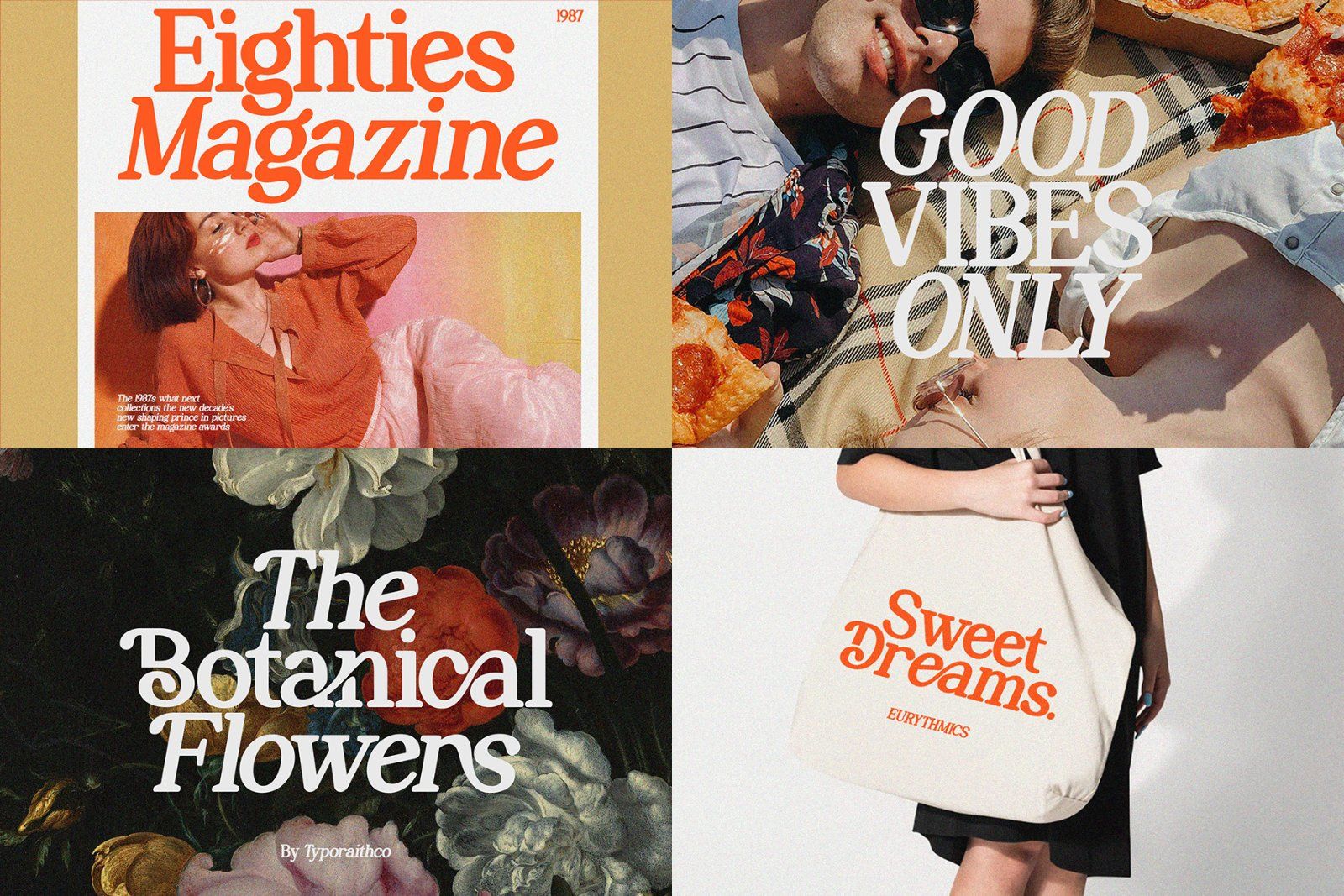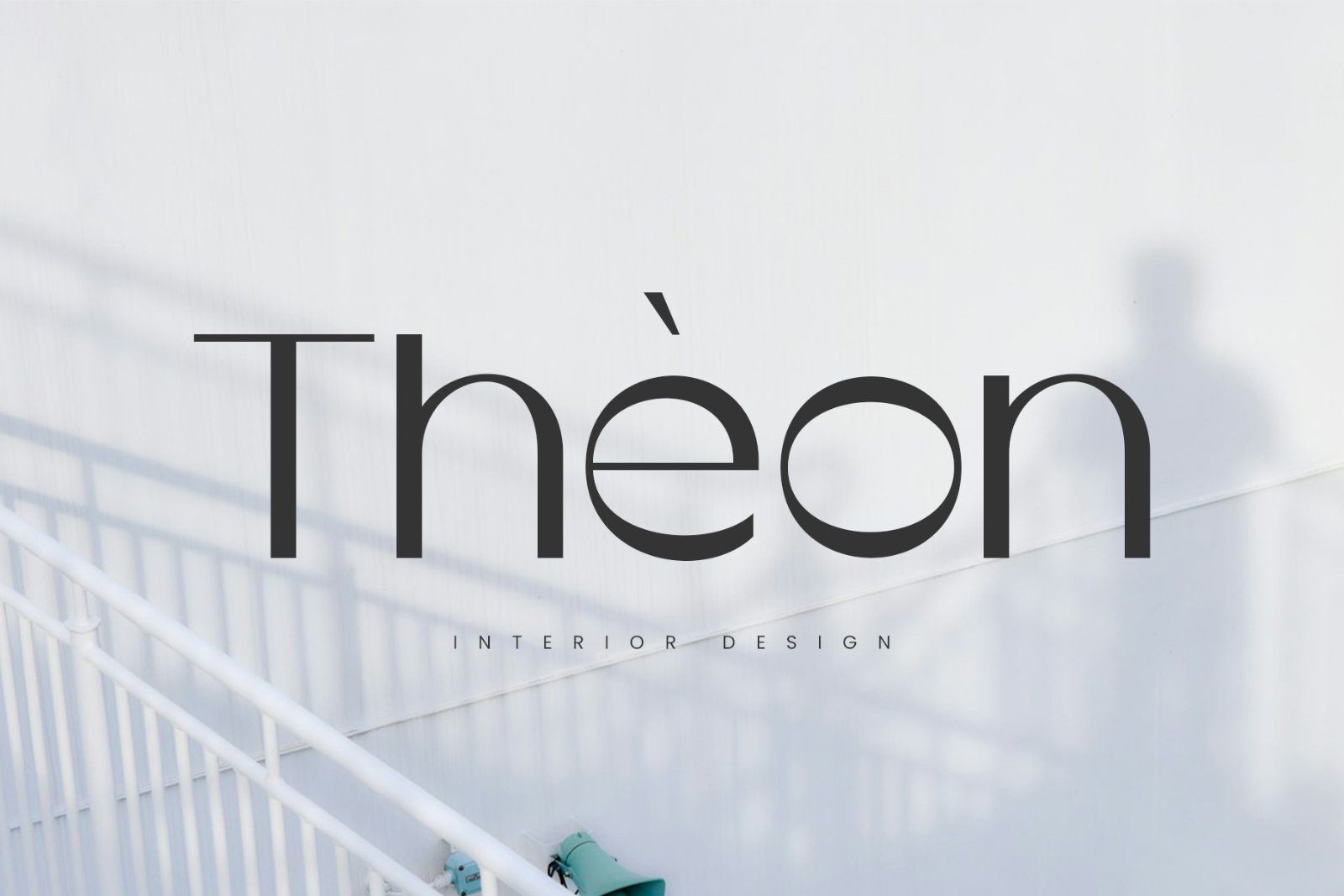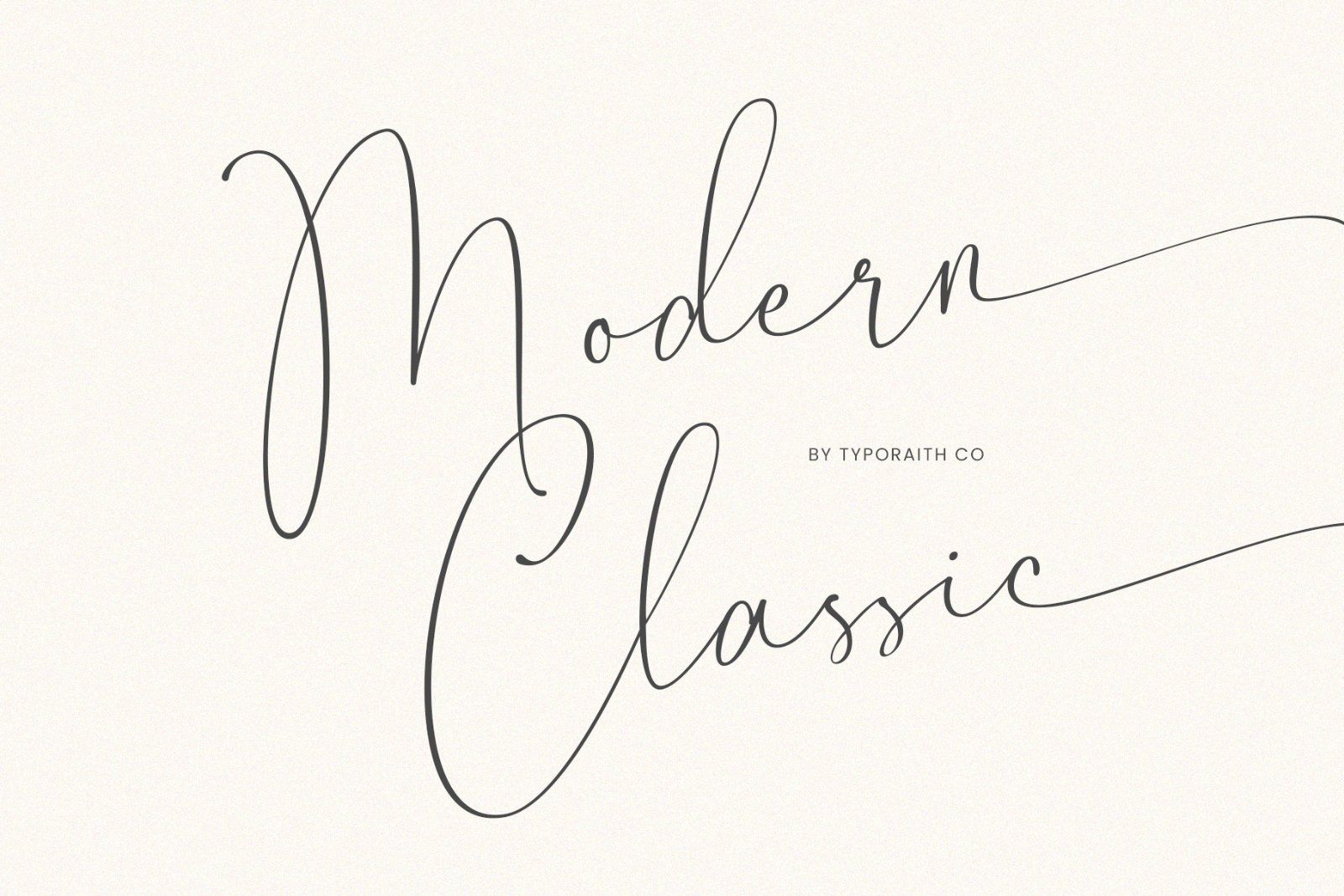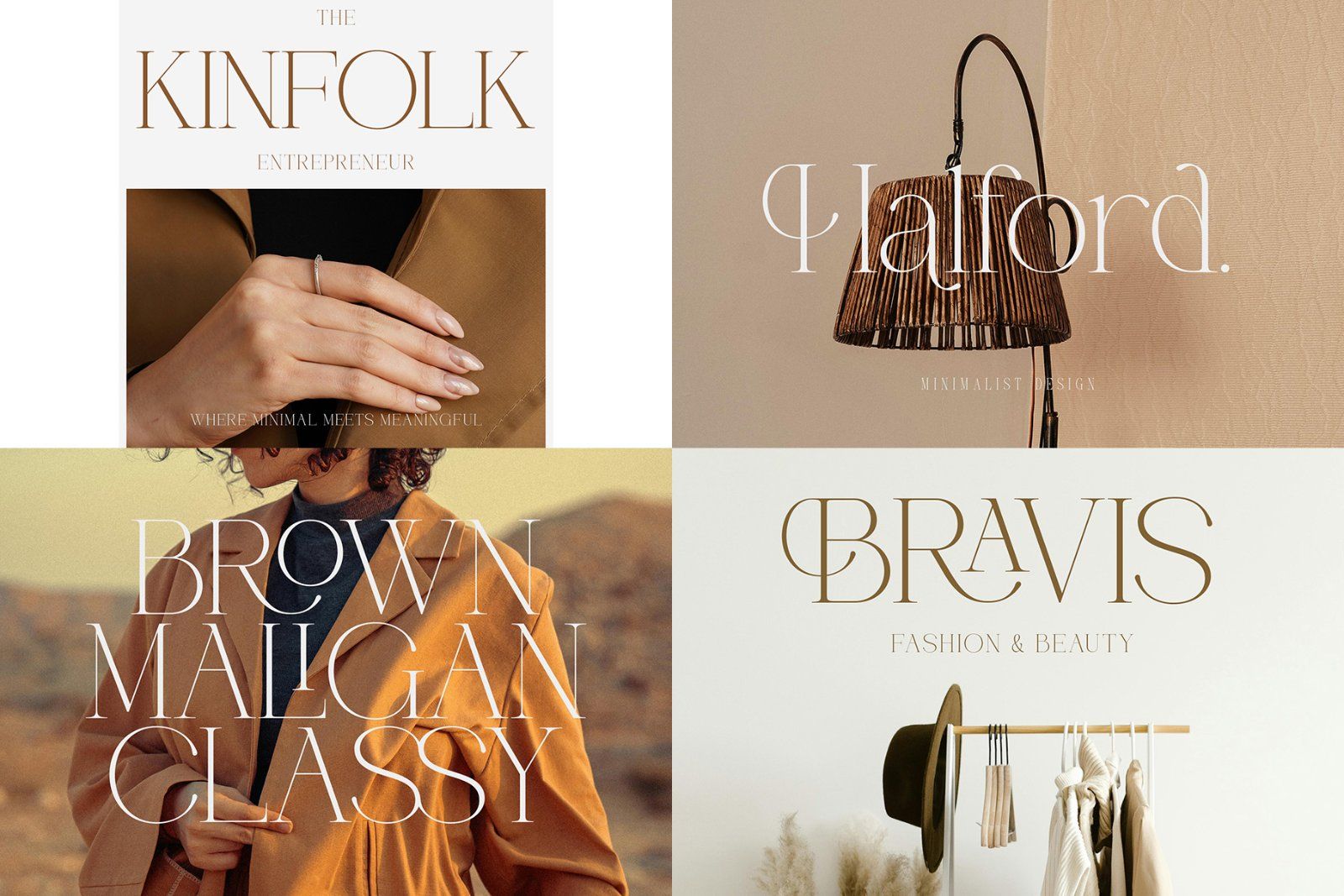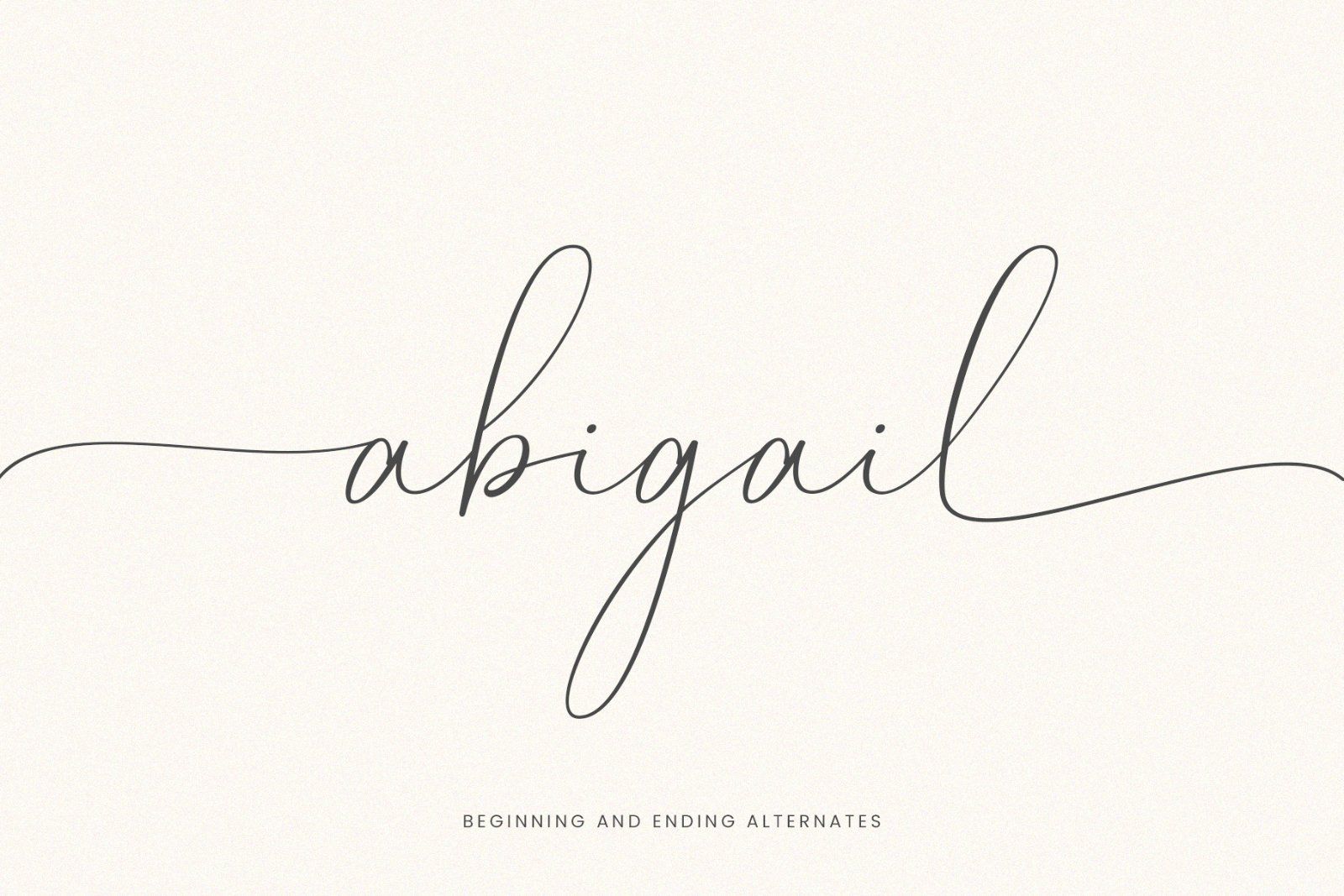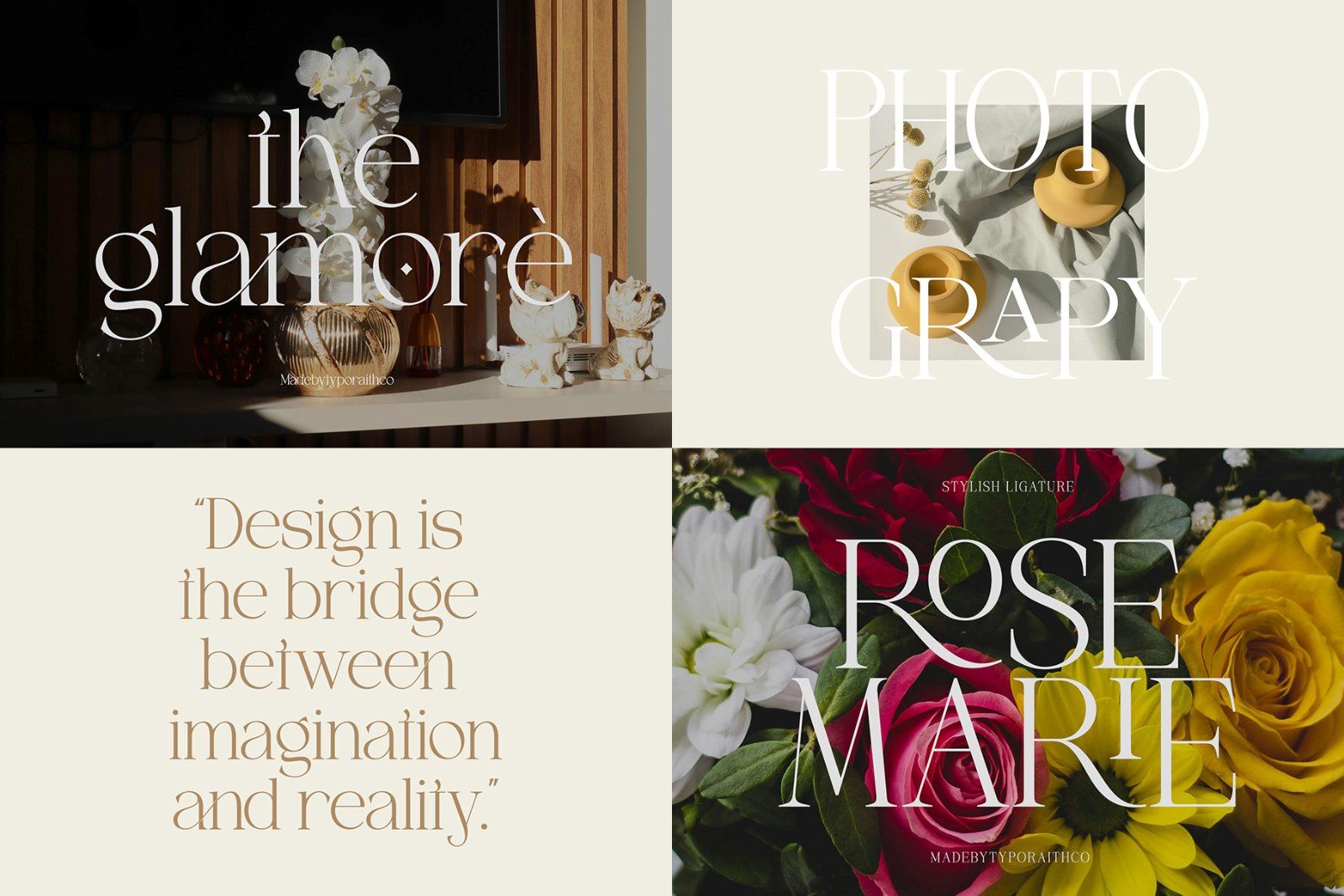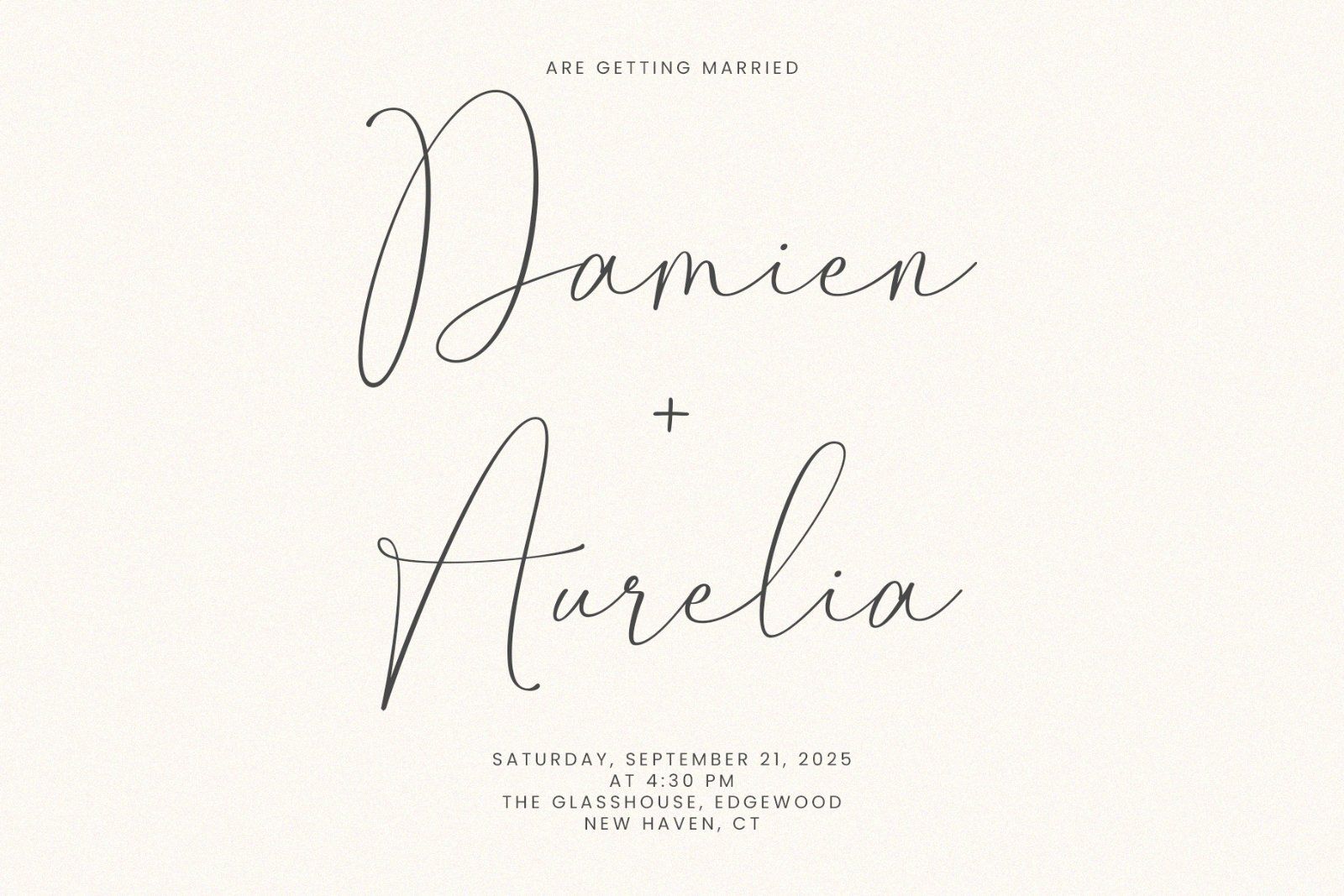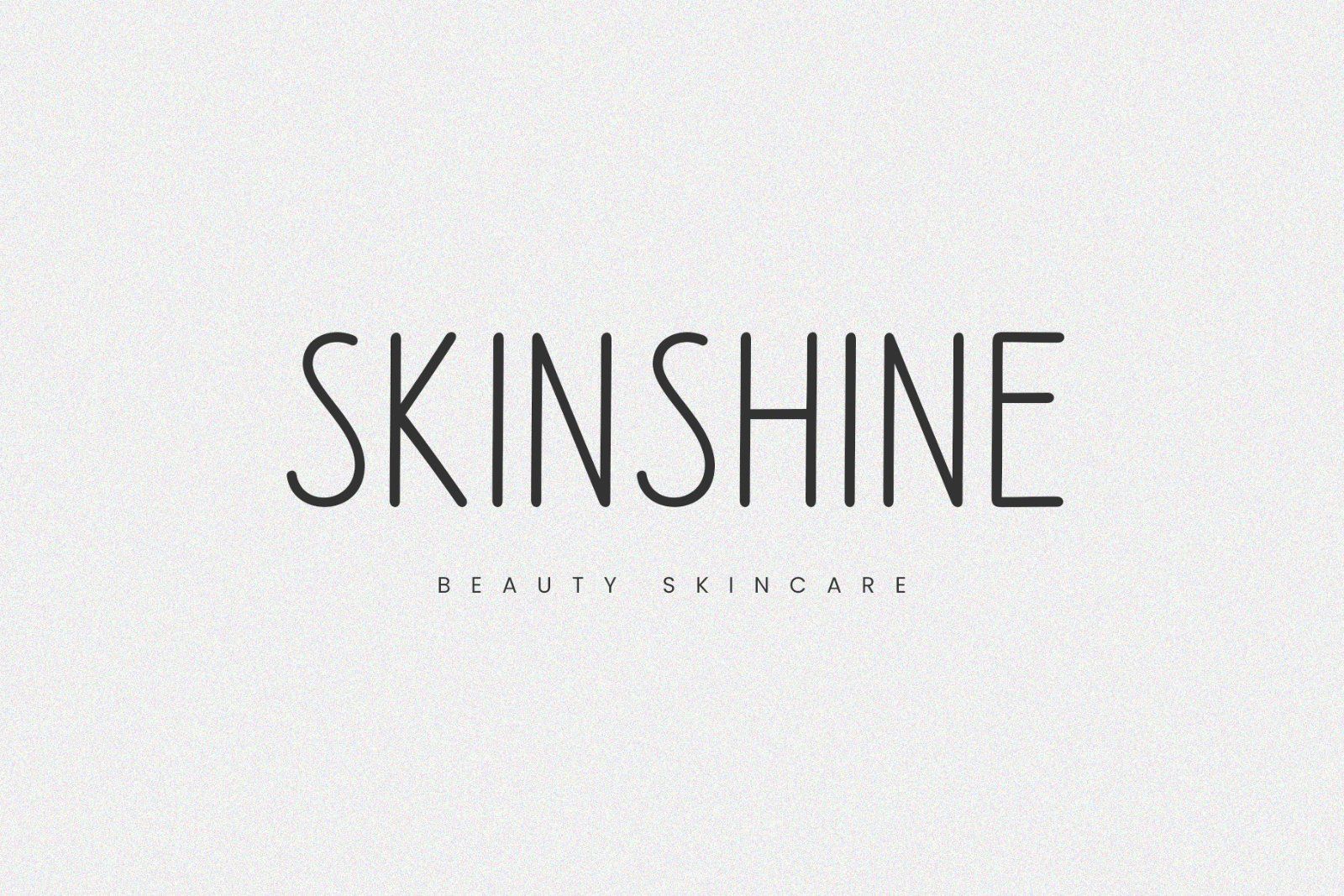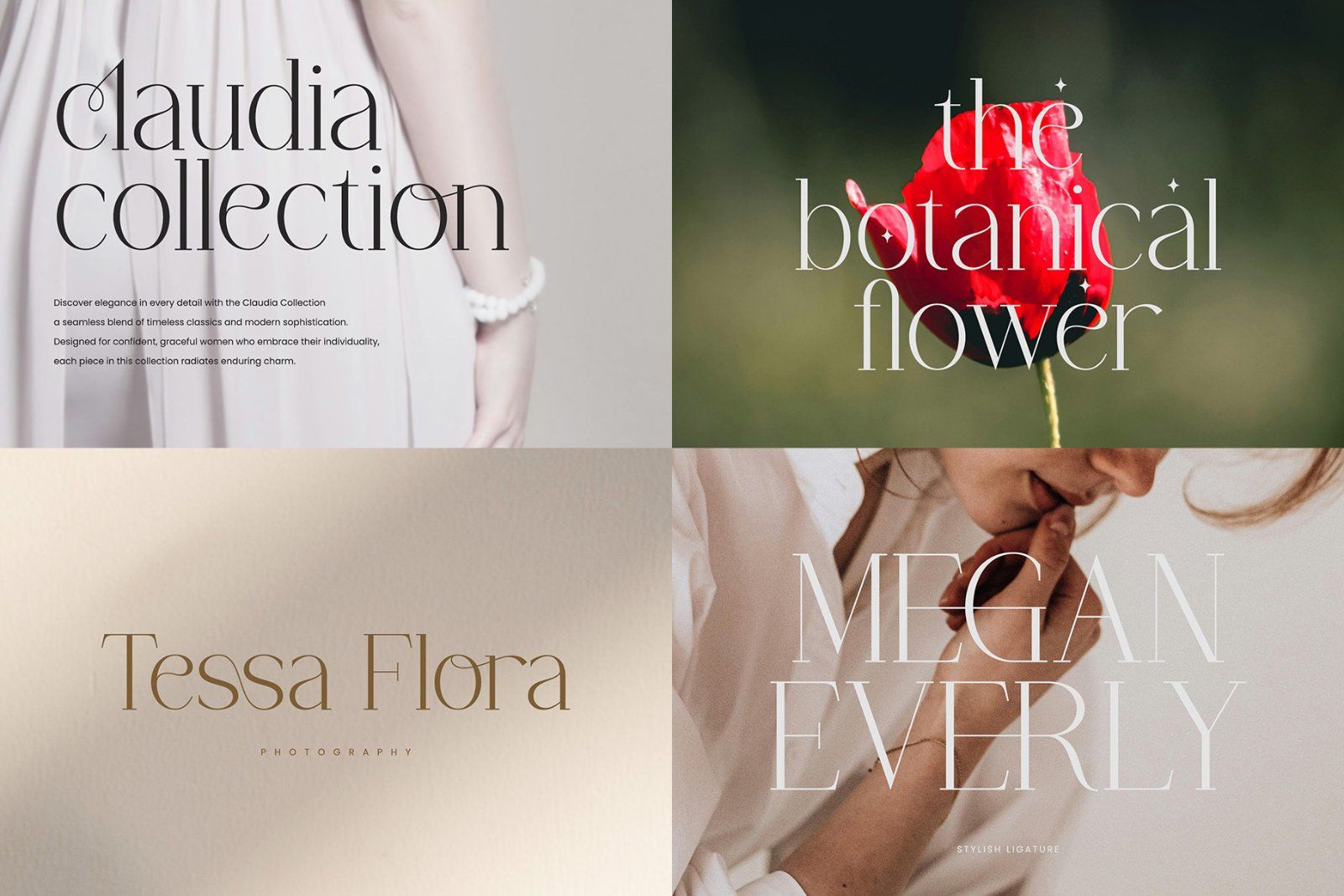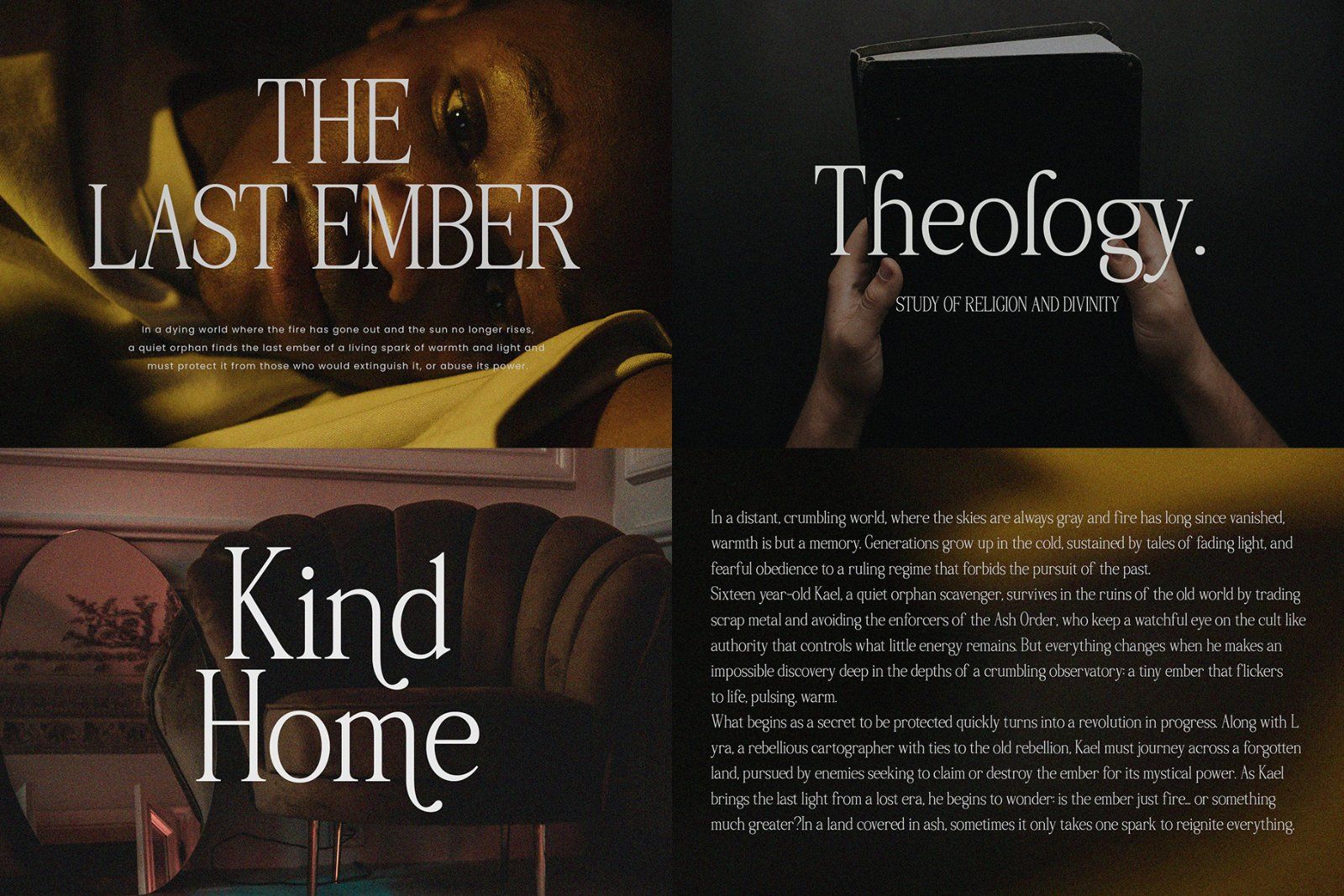
Elevate your design work with a collection of 12 premium serif, sans serif and script fonts that blend modern aesthetics with classic elegance. The Modern Serif Font Bundle is perfect for creatives, designers, and brands looking for refined, stylish, and versatile typography.
Why Designers Love This Bundle:
• Timeless Aesthetic – Each font blends modern minimalism with classic elegance, perfect for high-end and editorial designs.
• Versatile Usage – From logos and branding to invitations and web design, these fonts adapt beautifully to any project.
• Full Character Sets – Includes uppercase, lowercase, punctuation, numerals, Alternates /Ligatures and multilingual support.